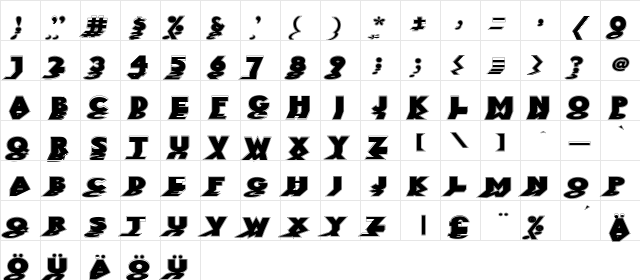
MirrorblacKOutline Regular Font Preview
MirrorblacKOutline Regular
MirrorblacKOutline Regular Font Details
Design Context for MirrorblacKOutline Typeface
MirrorblacKOutline brings ornamental detail and strong personality to headlines and identities, where visual impact matters more than quiet functionality.
Font Pairing: Pair with a clean neutral sans-serif for body copy to let MirrorblacKOutline's character lead without overwhelming the composition.
Pro Tip: Treat MirrorblacKOutline as the centrepiece of your typographic hierarchy. One strong heading set in a decorative face can carry an entire layout.